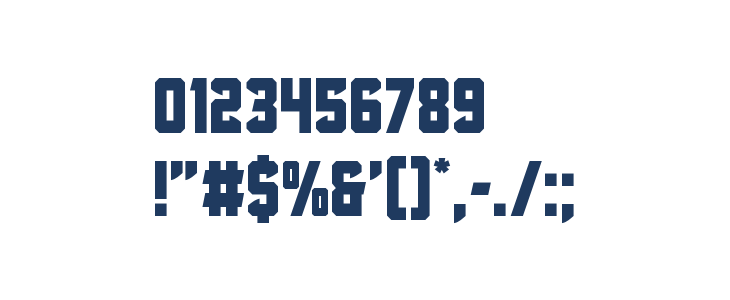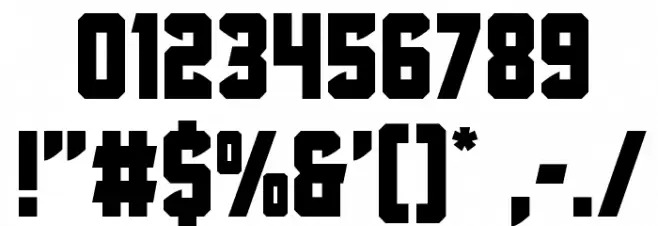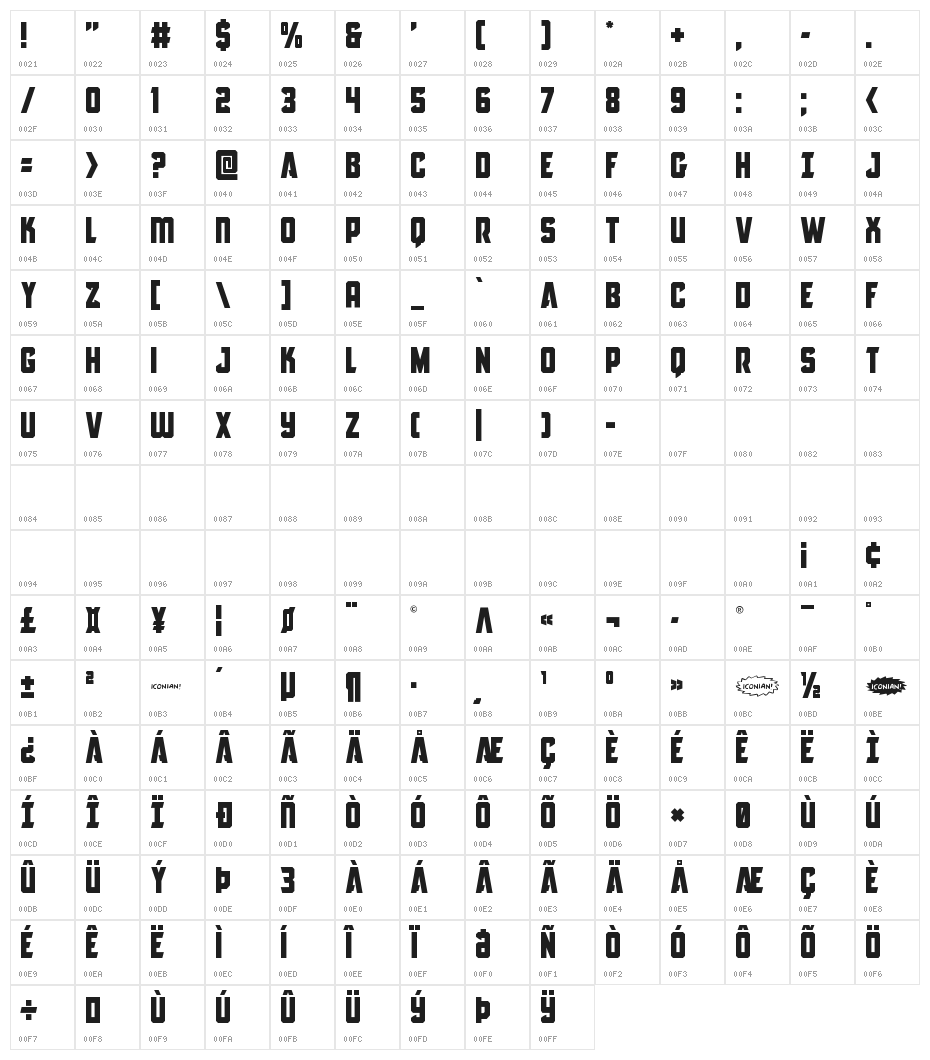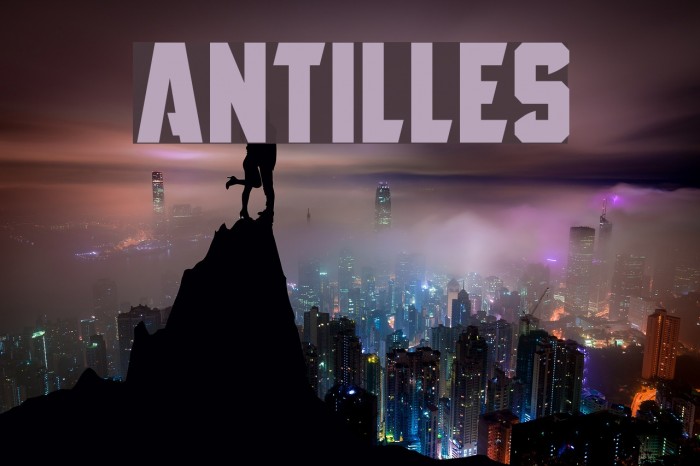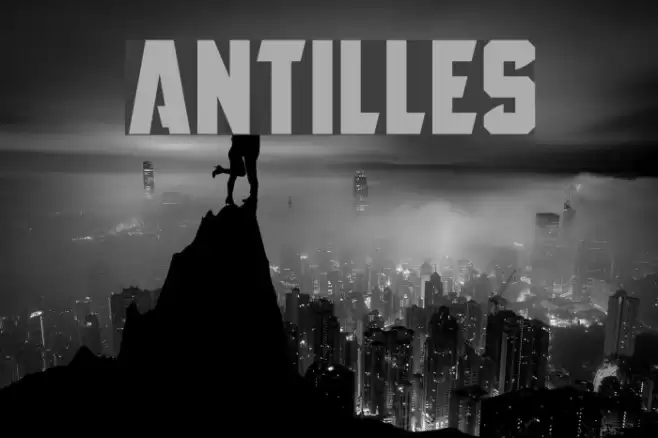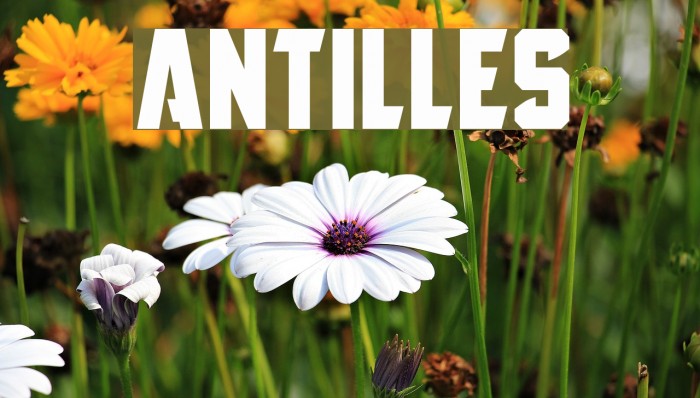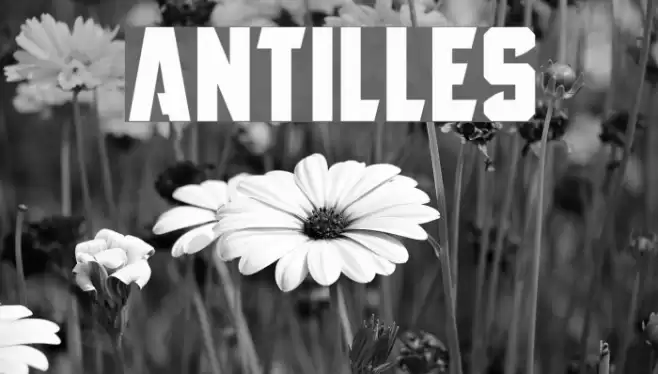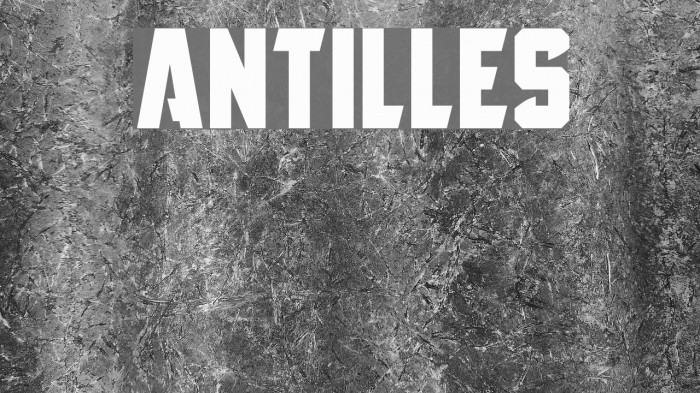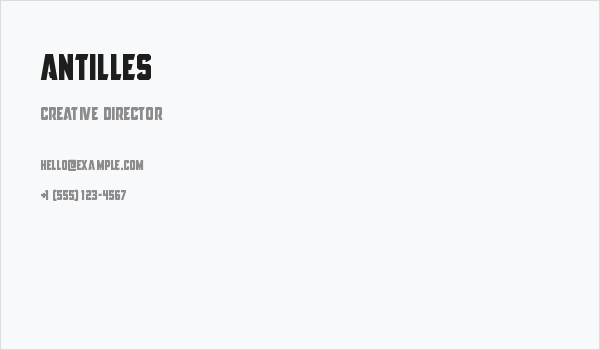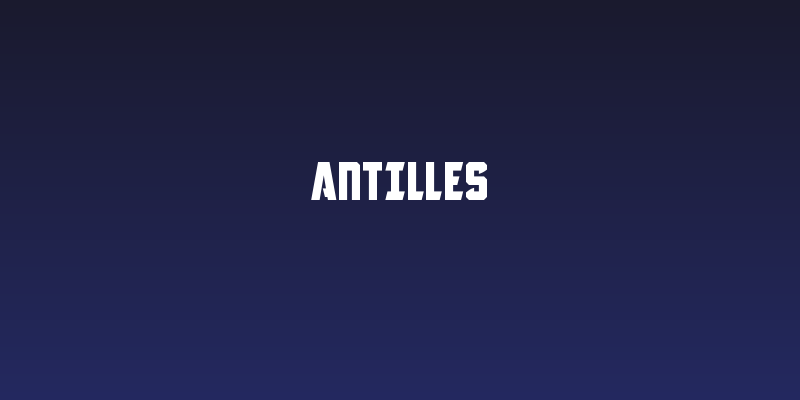
Antilles Font
Antilles Description
This font features a bold and striking design with strong geometric shapes and sharp angles. The uppercase letters are particularly prominent, with a blocky and robust appearance that commands attention. The lowercase letters maintain the same boldness, ensuring consistency across all text. Numbers and special characters are equally bold, making them stand out effectively. The font's style is reminiscent of vintage athletic or collegiate typefaces, offering a sense of strength and durability. Its thick strokes and solid presence make it ideal for impactful headlines or logos.